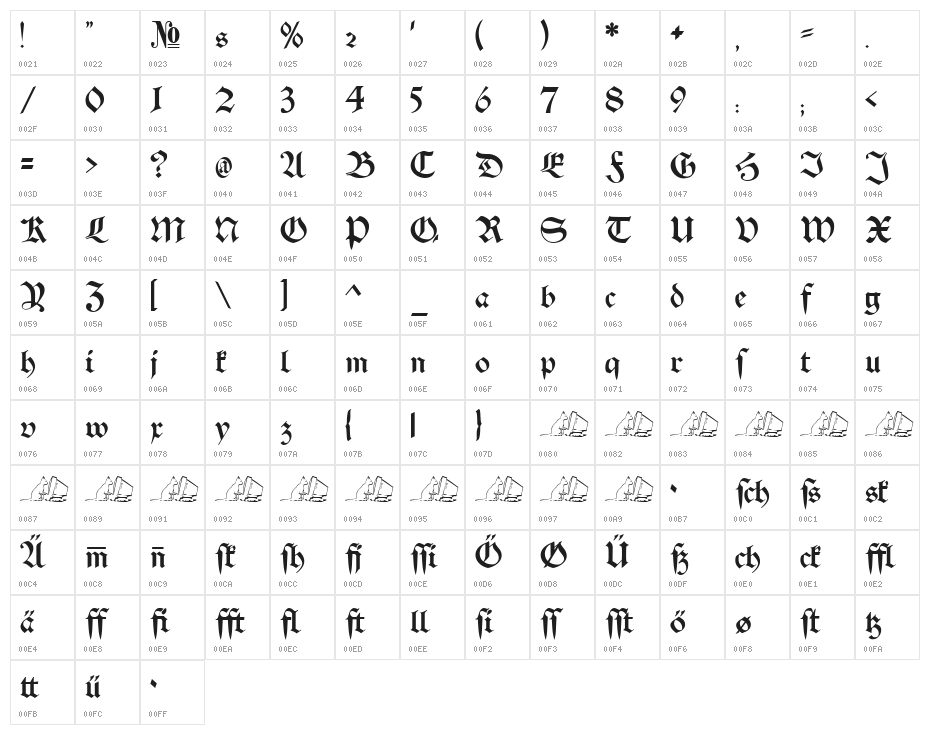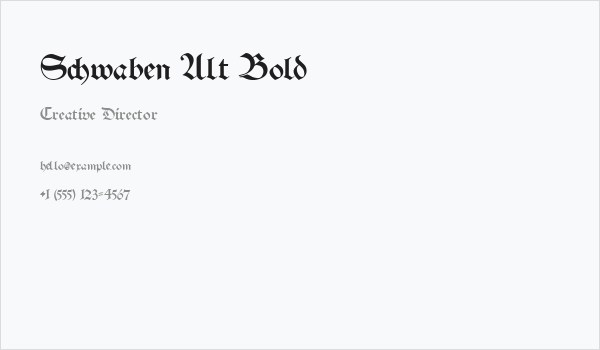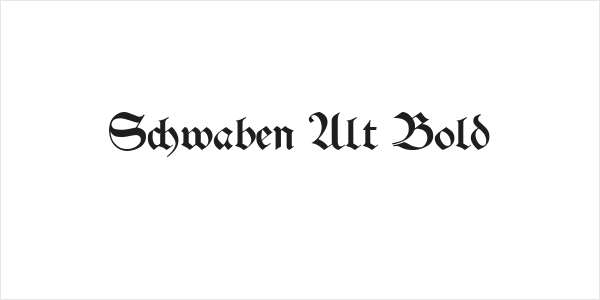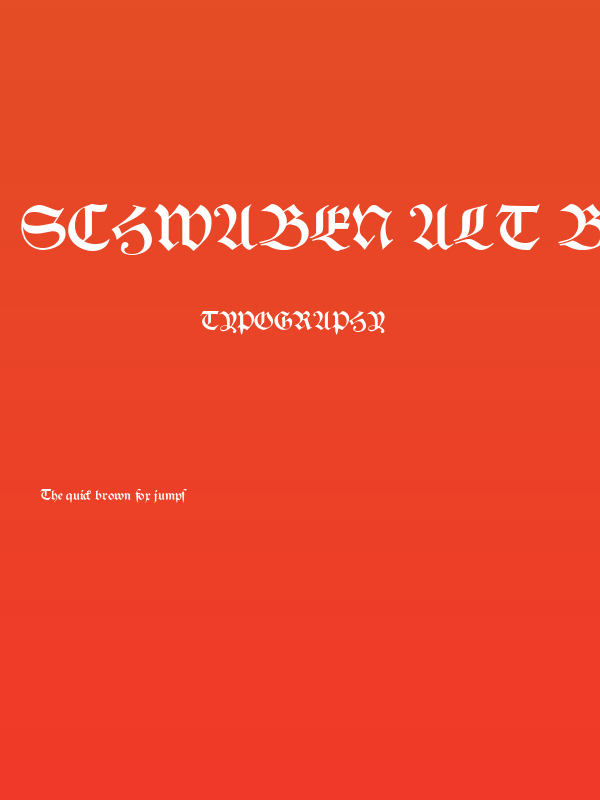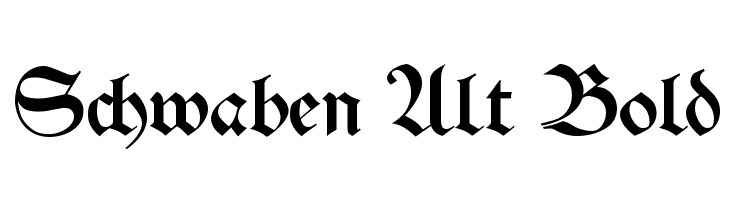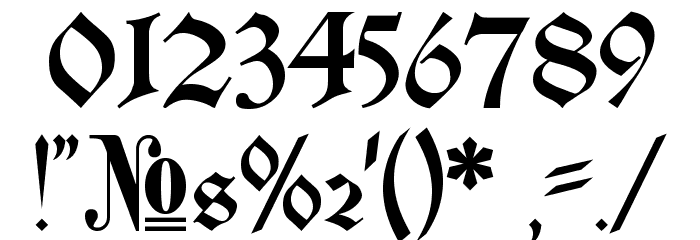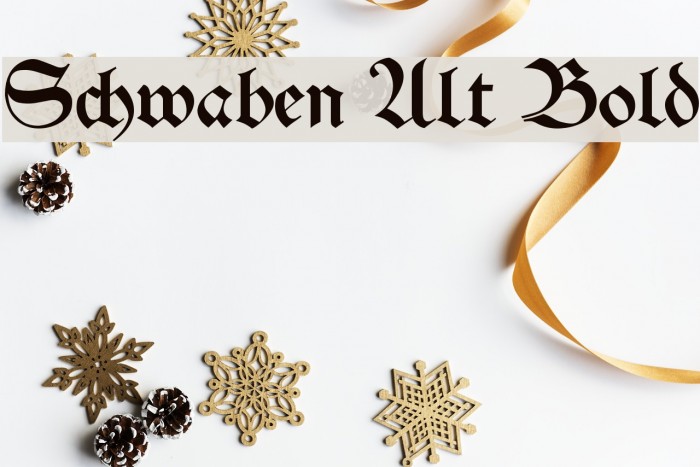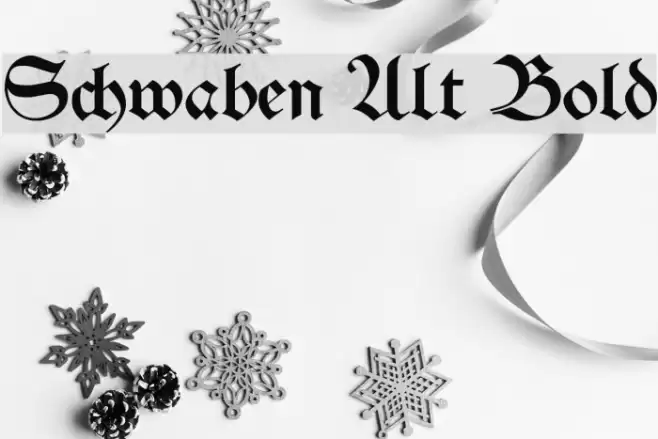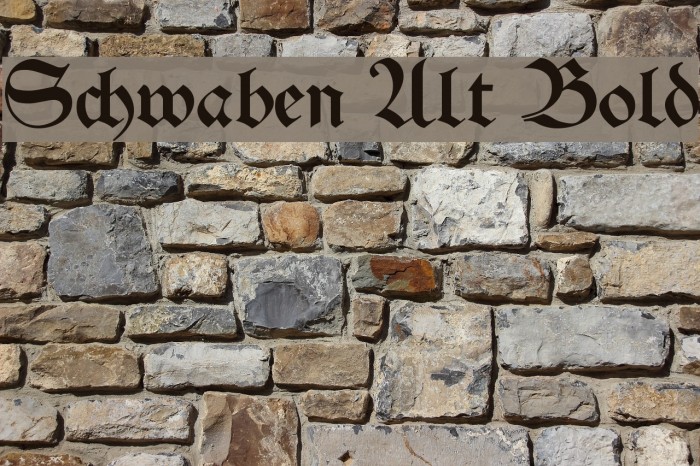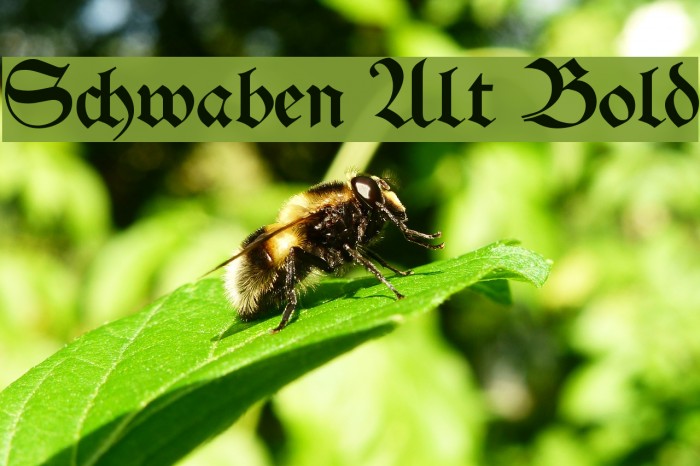
Schwaben Alt Bold Font
Schwaben Alt Bold Description
This font exhibits a traditional blackletter style, characterized by its intricate and ornate design. The letters are bold and angular, with sharp edges and a distinct medieval aesthetic. The uppercase and lowercase letters maintain a consistent style, with elaborate serifs and a strong presence. The numerals and special characters are equally detailed, fitting seamlessly with the overall design. This font is reminiscent of historical scripts used in manuscripts and formal documents, offering a sense of elegance and formality.
| Overall Style | Vintage |
| Use Case | Logos, Headlines, Decorative text |
| Proposed Projects | Ideal for historical documents, certificates, invitations, and branding that requires a classic and formal touch. |